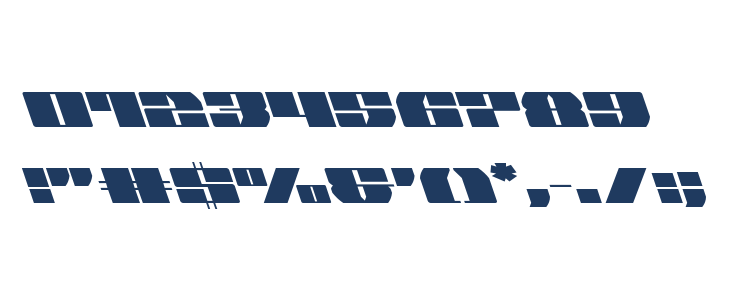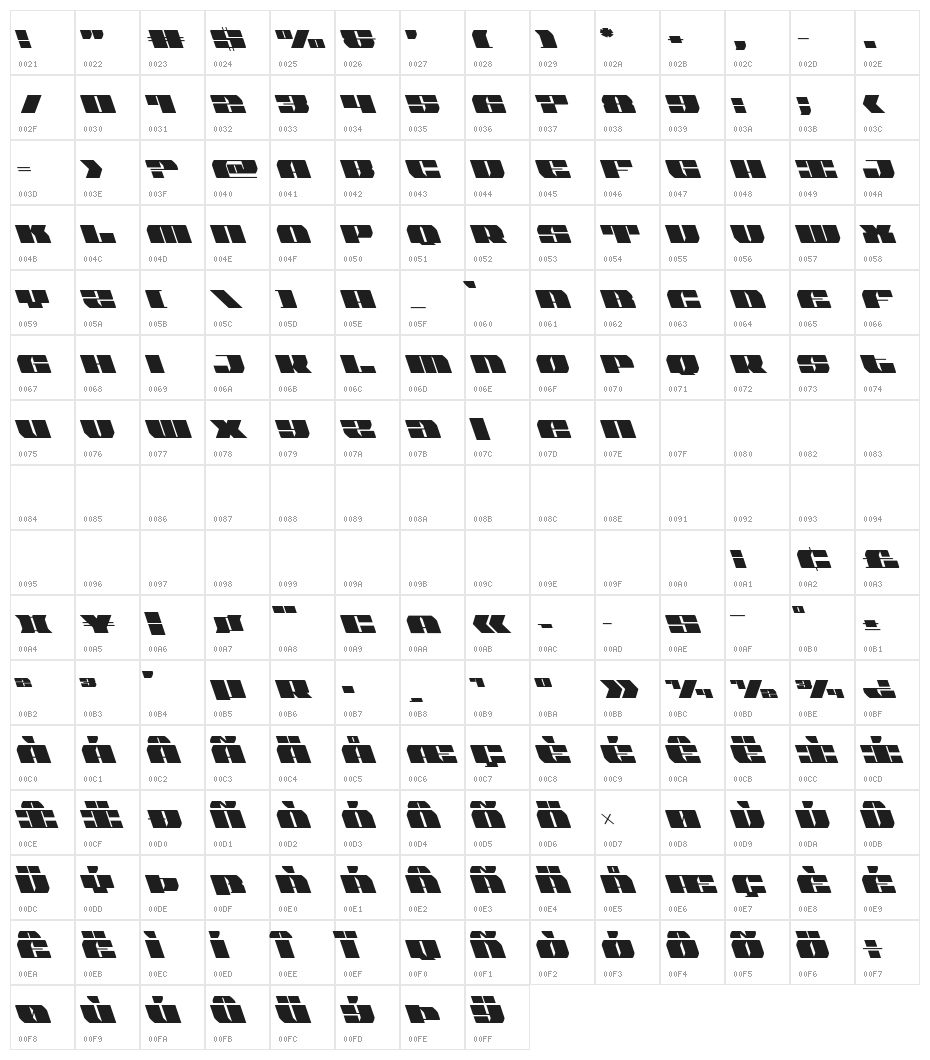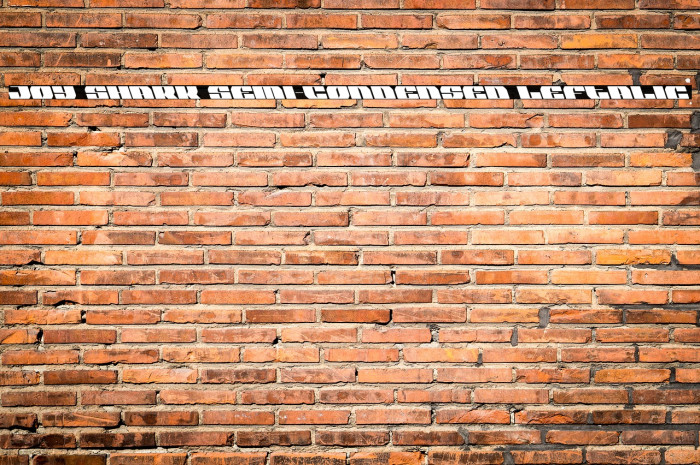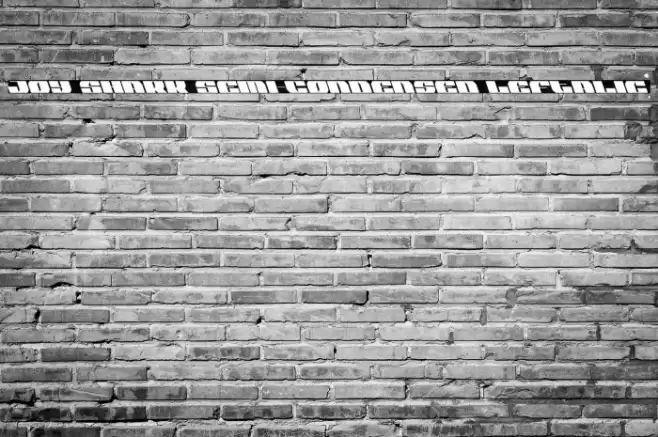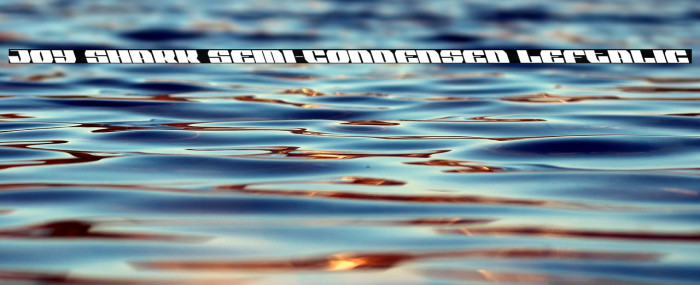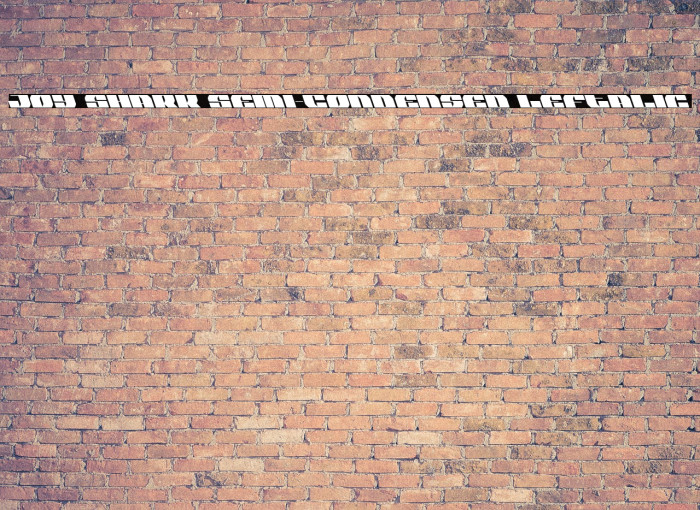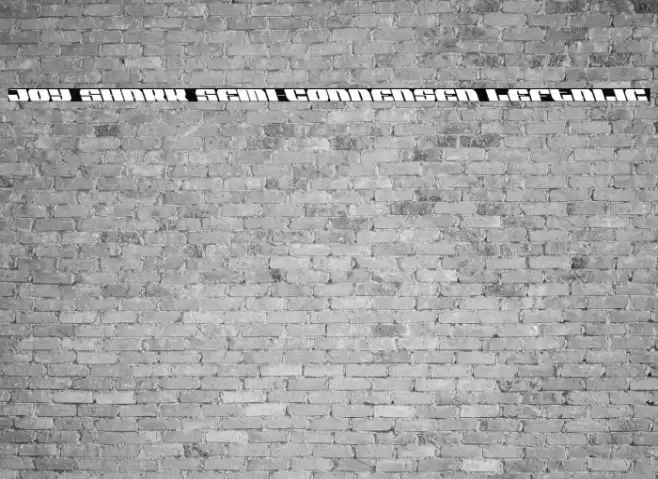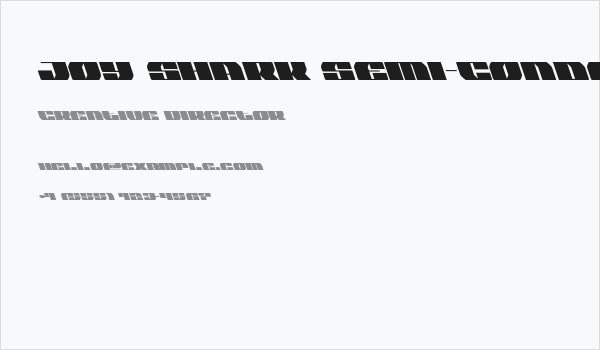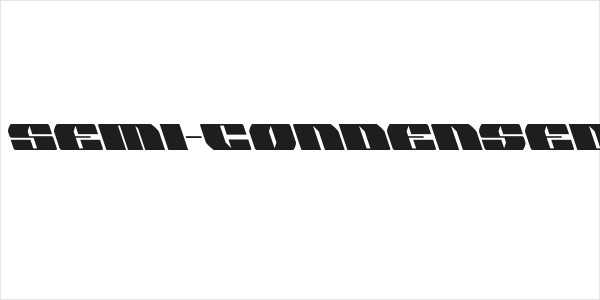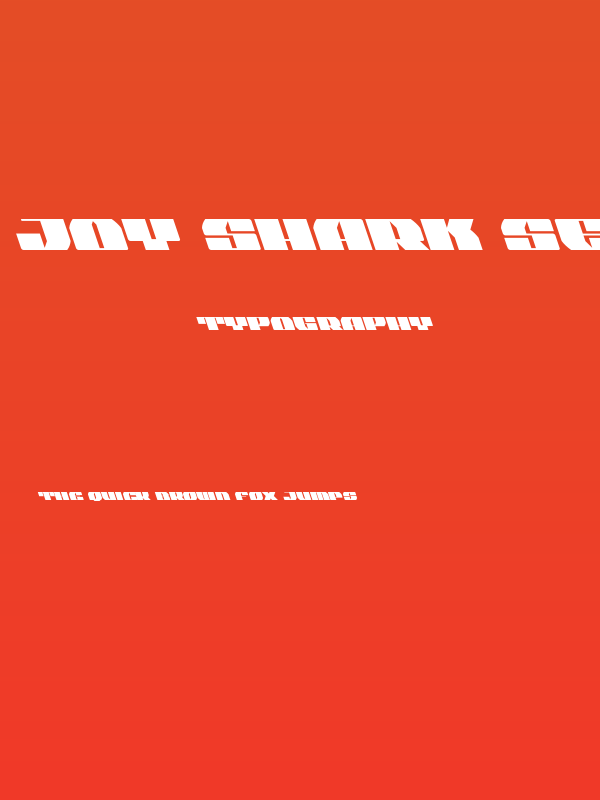
Joy Shark Semi-Condensed Leftalic Font
Joy Shark Semi-Condensed Leftalic Description
This font features a bold, semi-condensed style with a distinct geometric and angular design. The characters are heavily stylized, with sharp edges and a futuristic appearance. The uppercase and lowercase letters maintain a consistent width, contributing to a uniform look across the text. The numbers and special characters follow the same design principles, ensuring a cohesive visual identity. The font's strong presence makes it ideal for attention-grabbing headlines and modern design projects.
| Proposed Projects | Ideal for futuristic branding, tech-related designs, video game titles, and modern posters. |